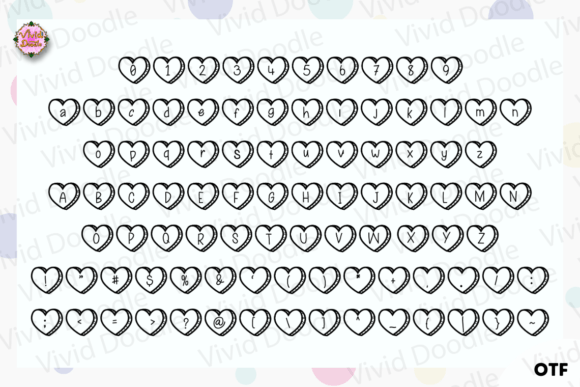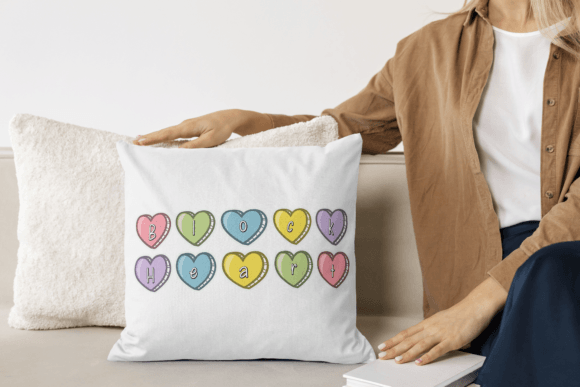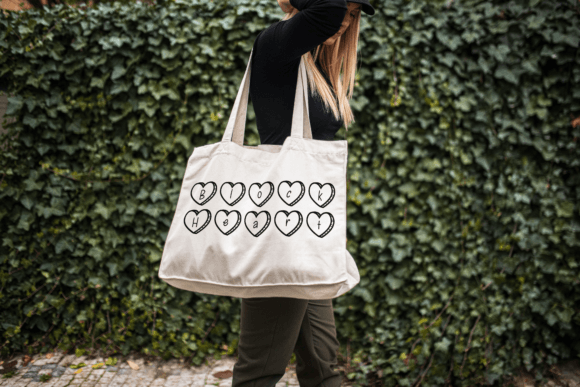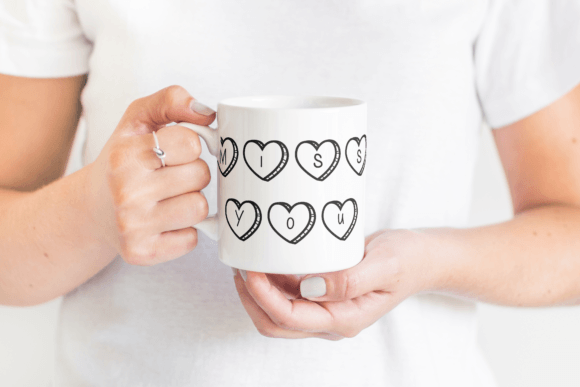
Deck the Halls with a Touch of Holiday Cheer
You know that feeling when you’re brainstorming ideas for a holiday project and the perfect font just clicks into place? It’s like the entire design comes alive with the right touch. For many designers, that moment is a thrill – and it’s exactly what Block Heart Font is designed to deliver.
This exclusive hand-lettered font is the perfect companion for your holiday creations, radiating festive cheer and warmth. Whether you’re crafting cards, posters, or social media graphics, Block Heart Font is the key to unlocking the magic of the season. Its adaptability and enchanting style make it a valuable addition to any designer’s toolkit, and its unique charm will elevate your projects to the next level.
Key Features of Block Heart Font
- Unique Characteristic: The Block Heart Font features a distinctive, hand-drawn design with bold, geometric lines and a modern aesthetic.
Block Heart Font Review
Overall, I think Block Heart Font is a cute and quirky addition to any design project. ✨ It has a lot of potential for use in playful and creative contexts, such as children’s books, greeting cards, or social media graphics. The font’s blocky, hand-drawn feel is endearing and attention-grabbing.
- ✨ Unique and quirky design aesthetic
- ✨ Perfect for adding a touch of playfulness to a design
- ✨ Can be used in a variety of contexts, from children’s books to social media
- ⚠️ Limited legibility in smaller font sizes
- ⚠️ May not be suitable for formal or professional designs
- ⚠️ Can be overwhelming if used in large quantities
Overall, I think Block Heart Font is a fun and creative option for designers looking to add a little personality to their projects. While it may have some limitations, I think its unique design aesthetic makes it worth considering for the right projects.
The Block Heart Font is a versatile font that can be used in a variety of applications, including:
- Valentine’s Day cards and decorations
- Social media graphics and ads